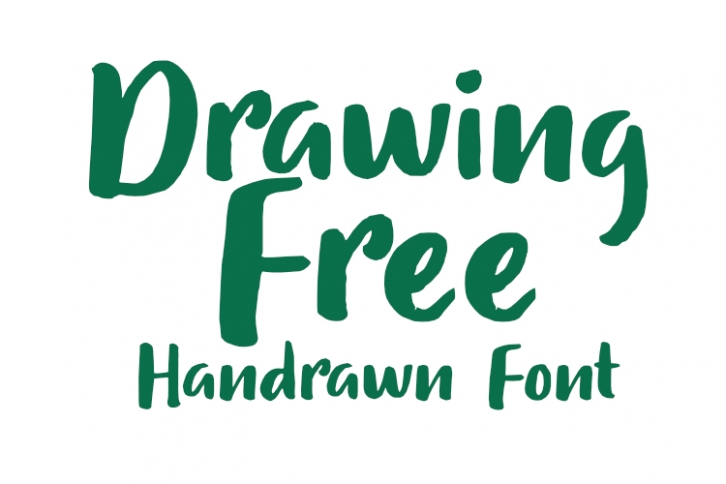
Drawing Free Modern Handrawn Font Download
Drawing Free Modern Handrawn is a trendy and unique font with an authentic style. It was designed by haris prawoto and it's a great choice for creative people who need such a font. It was released on February 5, 2020 and the file size is 11.44 MB. Drawing Free Modern Handrawn will add an organic vibe to any design idea!